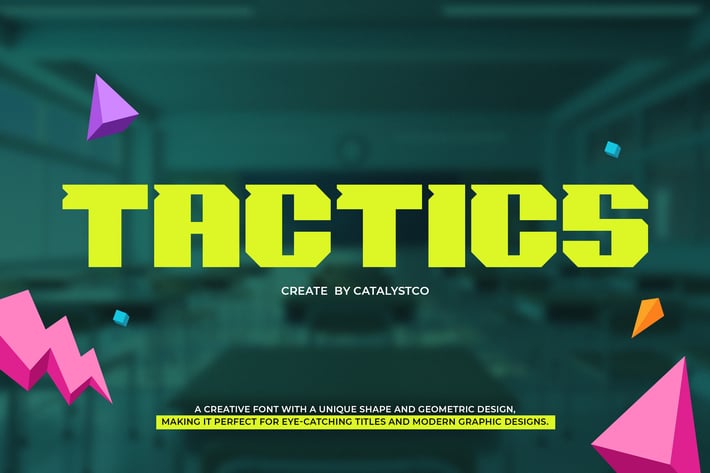
Tagtics Geometric Font
catalystco
Tagtics Geometric Font typeface excellent used for the manufacture quote text, logotype, header magazine, and many more.